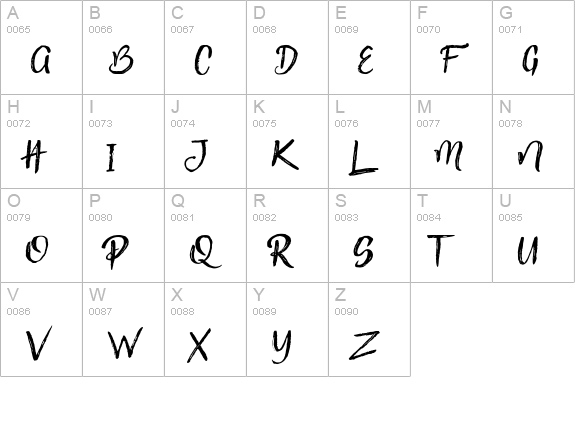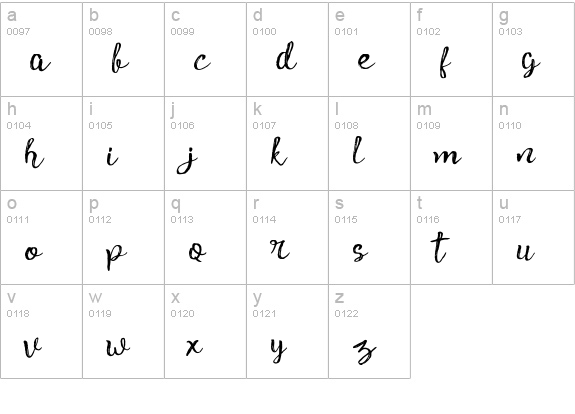
Pink Gladiolus Font Details
Pink Gladiolus is a free for personal use font in the Script > Brush category, designed by madeDeduk. It has been downloaded 17 times and is available for Windows, Mac and Linux.
Introducing Pink Gladiolus font, a charming and elegant typeface that exudes sophistication and style. With its delicate strokes and graceful curves, Pink Gladiolus is perfect for adding a touch of femininity to any design project. This versatile font is ideal for a wide range of applications, from wedding invitations to branding materials.